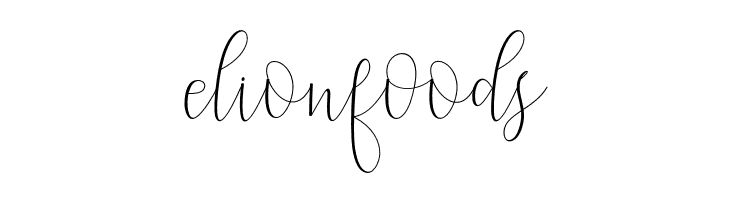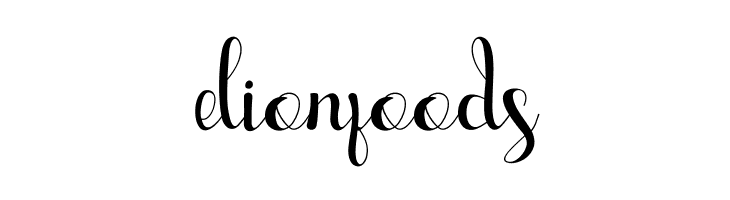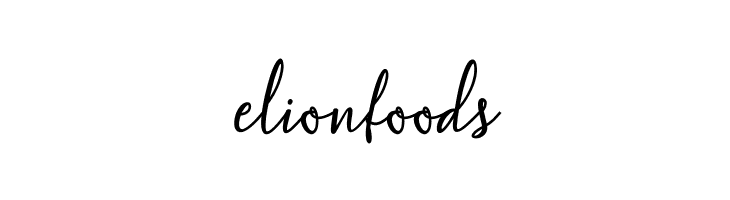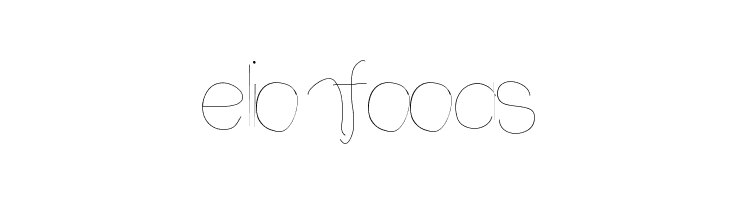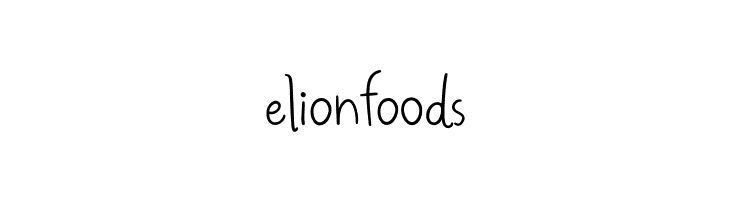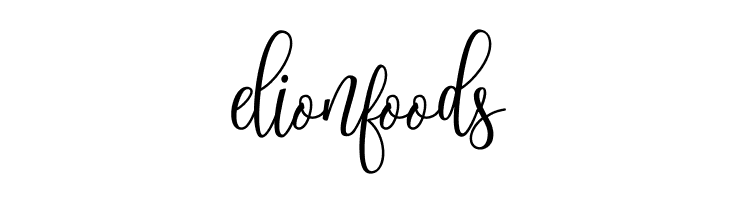
( Syahputra - creativemarket.com/Bexxtype )
A graceful, elegant script font with flowing, interconnected letters.
( Syahputra - creativemarket.com/Bexxtype )
A modern, elegant script font with flowing, interconnected characters.
( Syahputra - creativemarket.com/Bexxtype )
An elegant script font with flowing, cursive letterforms and refined curves.
( The Autumn Rabbit - Louise Ross - www.theautumnrabbit.com )
A thin, elegant font with a modern and minimalistic design.
( Thirtypath - www.thirtypath.com )
A playful and elegant script font with flowing, interconnected letters.
( Tungus studio - Adam Josefus - www.tungus.cz )
A playful, handwritten font with a whimsical and casual style.
( Type Design - Muhammad Zaini - fontbundles.net/typedesign )
An elegant, flowing script font with graceful loops and a sophisticated style.
( Typia Nesia - www.myfonts.com/foundry/Typia_Nesia/ )
A modern, cursive font with elegant, flowing lines and a handwritten appearance.
( Vladimir Fedotov )
A delicate, flowing script font with elegant, interconnected characters.
( Vladimir Fedotov )
An elegant, italic script font with flowing, connected characters.